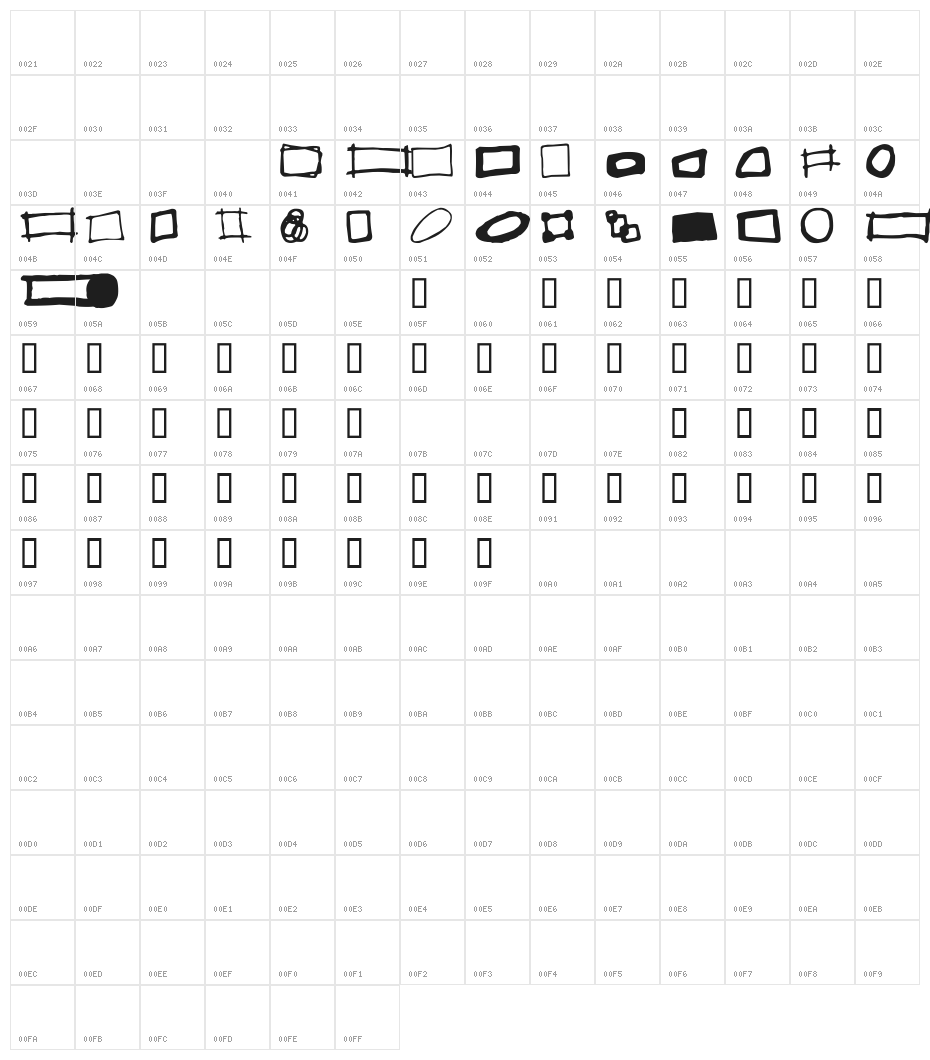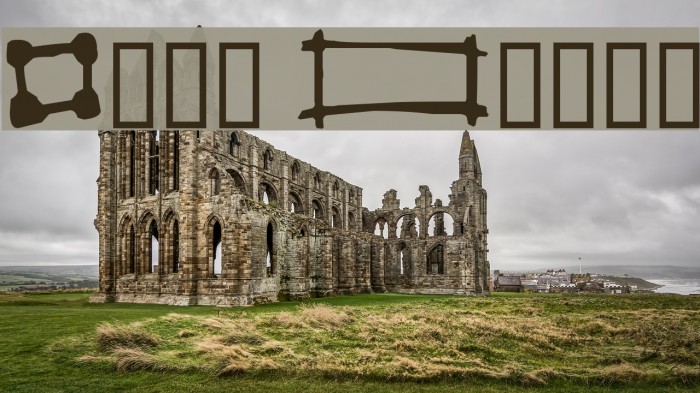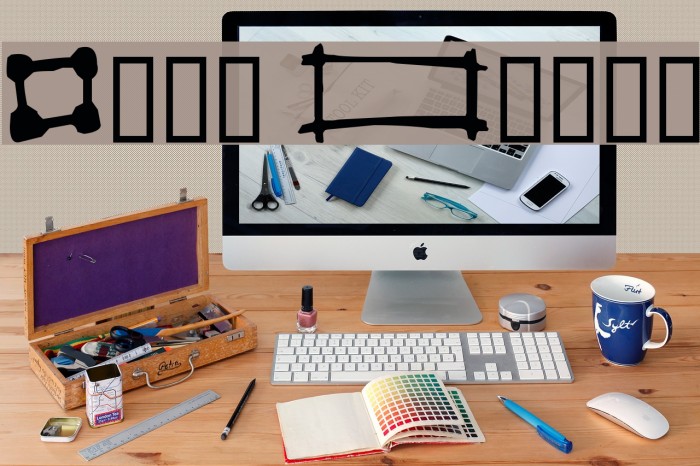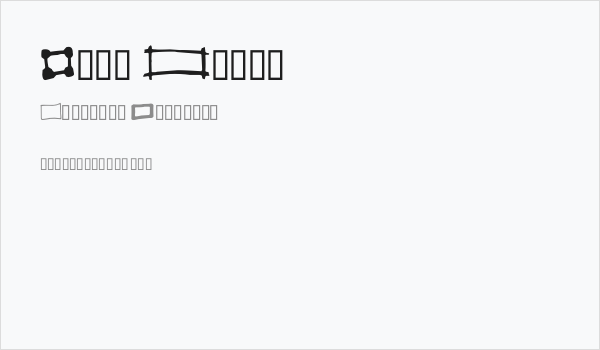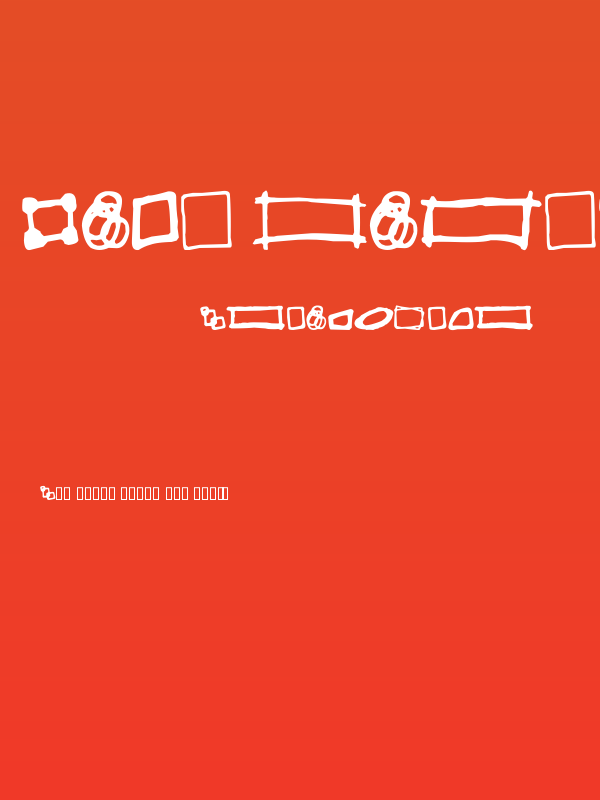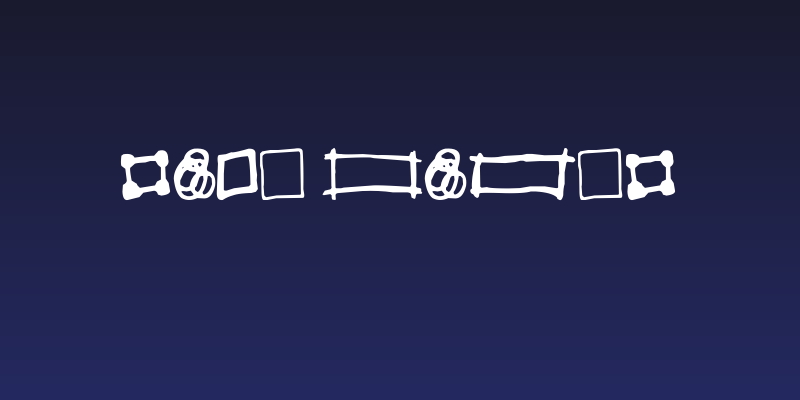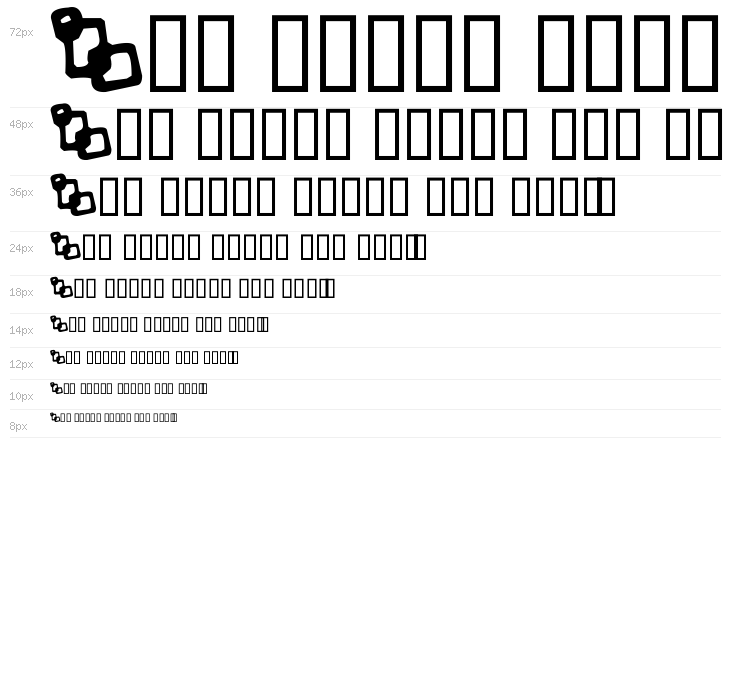
Some Boxes Font
Some Boxes Description
This design features a series of abstract, hand-drawn box shapes that vary in size and form. The characters are represented by irregular, sketch-like rectangles and ovals, giving a playful and artistic feel. The lines are bold and uneven, contributing to a casual, informal aesthetic. The overall appearance is reminiscent of doodles or sketches, with each character maintaining a unique, quirky shape. This style is highly decorative and not intended for traditional text display, but rather for creative and artistic projects.
| Use Case | Artistic designs, posters, creative projects. |
| Proposed Projects | Ideal for creative projects such as art posters, album covers, or any design requiring a whimsical and artistic touch. |